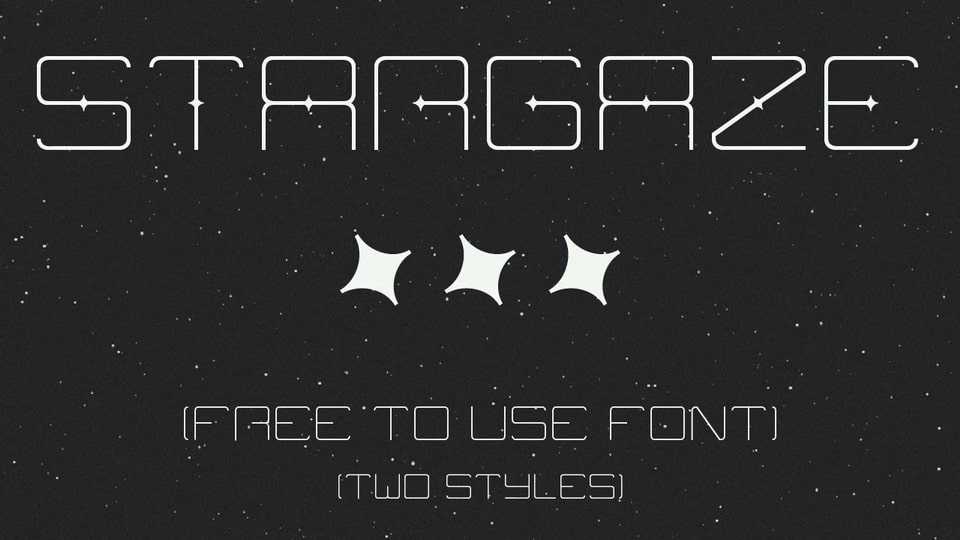
Download Stargaze font, a free display typeface inspired by the vast, mysterious beauty of outer space. With two unique styles, this font is perfect for posters, sci-fi projects, creative titles, and anything that deserves a touch of the cosmic.